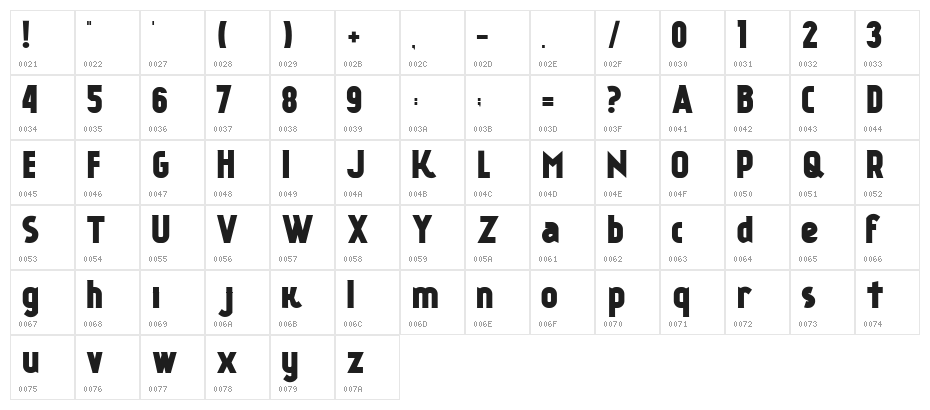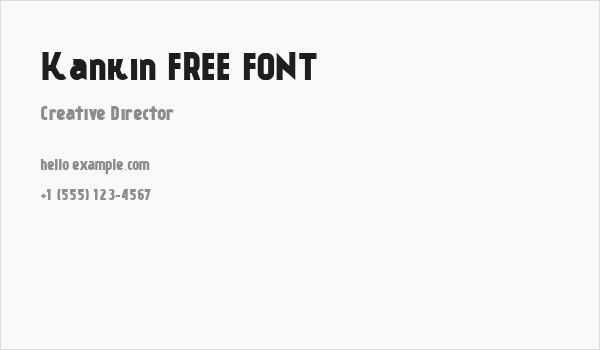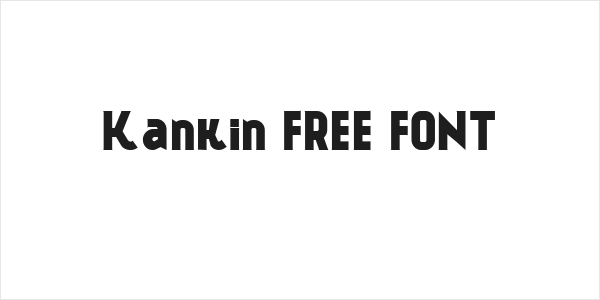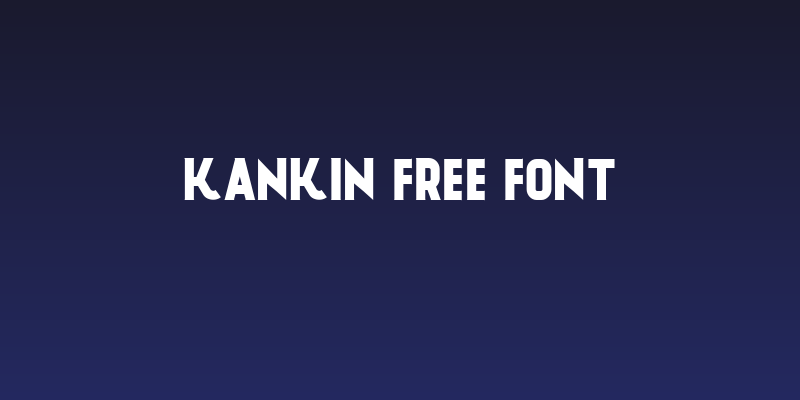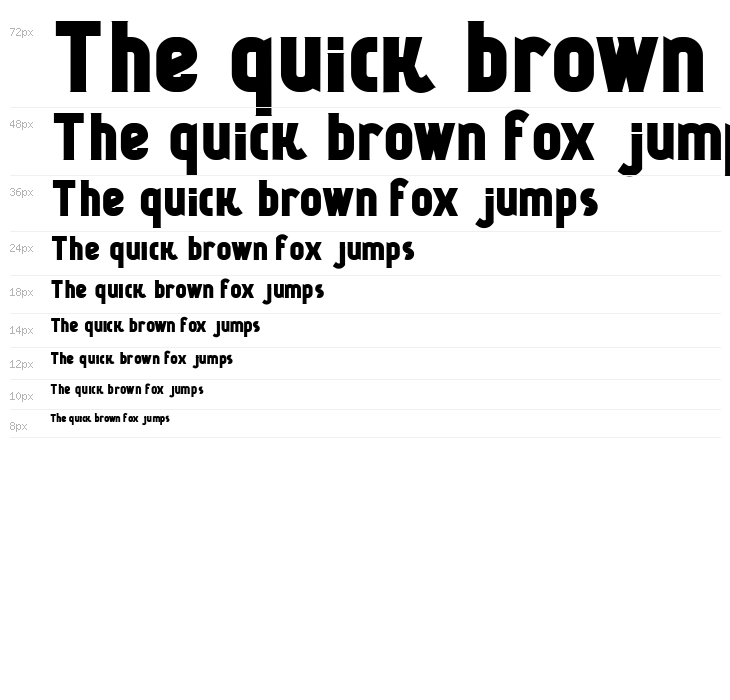
Kankin FREE FONT Font
Kankin FREE FONT Description
This font features a bold and geometric style with strong, clean lines and a modern aesthetic. The uppercase letters are particularly striking, with sharp angles and a uniform height that creates a cohesive look. The lowercase letters maintain the boldness of the uppercase, with rounded edges that add a touch of softness to the overall design. The numerals are equally bold, ensuring they stand out in any context. Special characters are included, maintaining the same bold and geometric style, making this font versatile for various uses.
| Proposed Projects | Ideal for branding, headlines, posters, and any design project requiring a strong visual impact. |